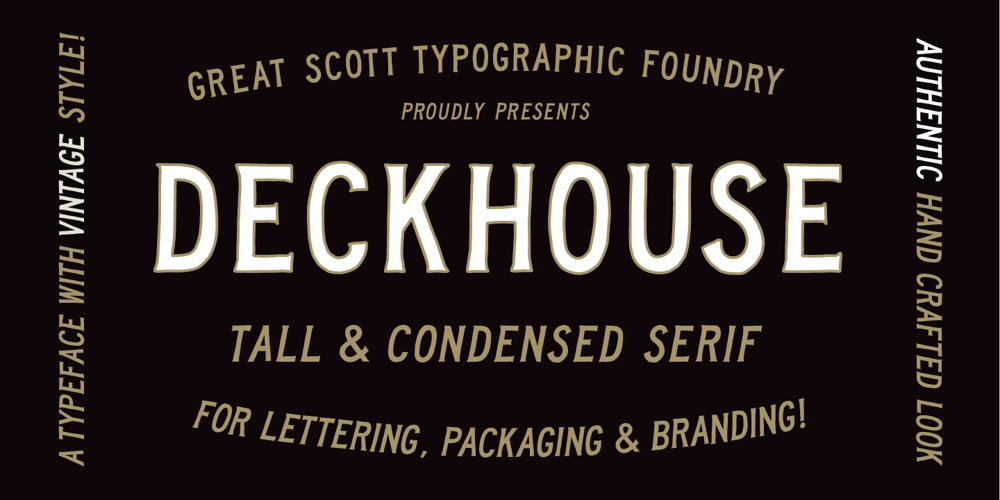
Deckhouse
Deckhouse font
Deckhouse Font Family was designed by Daniel Feldt and published by Great Scott. Deckhouse contains 2 styles and family package options. Deckhouse is a tall and condensed typeface with small serifs. It has an authentic hand crafted feeling and works wonder for packaging, lettering, invitations, cover and other types of display design projects.